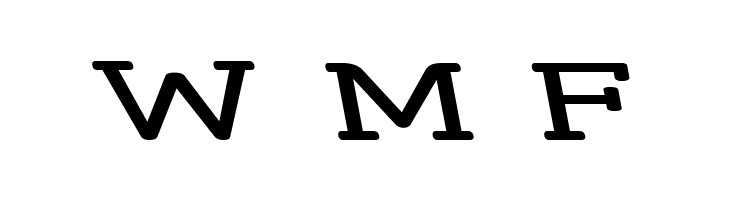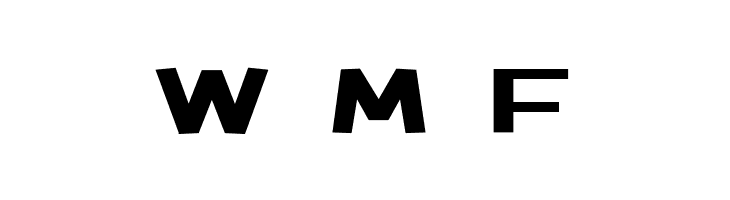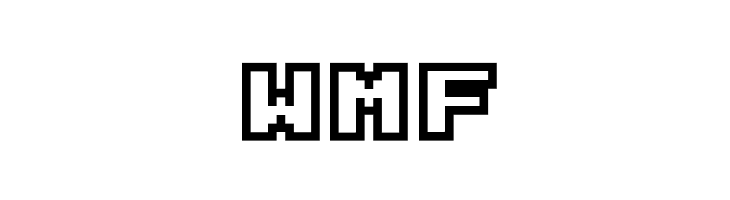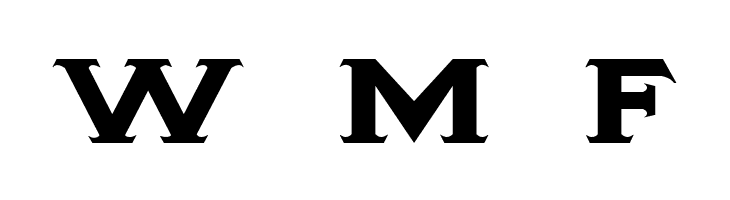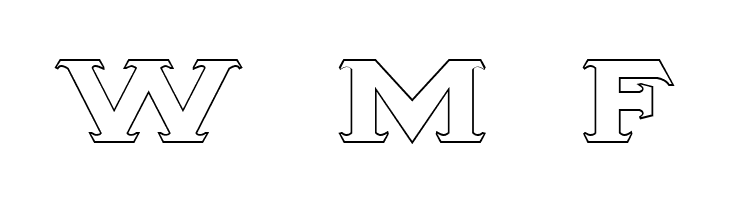
A bold, wide slab serif font with a modern yet classic appeal.
A bold, wide, and playful font with rounded forms and a modern style.
A jagged, decorative font with a spider web-like appearance, perfect for horror themes.
A modern, wide sans-serif font designed for high readability and clarity.
A bold, geometric font with wide, square-shaped characters and a modern aesthetic.
A futuristic font with a striped, geometric design ideal for tech and creative projects.
A textured, embroidery-inspired font with a bold, handcrafted look.
A bold, wide, and dynamic font with angular characters.
A bold, pixelated outline font with a retro video game style.
A bold, ultra-expanded serif font with wide letterforms and high contrast.
A bold, wide, and light serif font with a modern aesthetic.
A bold, wide, expanded font with extra black weight and high contrast.
Bold, italic, and expanded font with high contrast and dynamic style.
A bold, ultra-expanded italic font with a modern and dynamic style.
An ultra-expanded, light, and italicized font with a grand and dynamic style.
An ultra-expanded, light serif font with a modern and bold aesthetic.
A bold, wide, and expanded italic font with high contrast and strong visual impact.
A bold, ultra-expanded italic font with a powerful and dynamic presence.
Intricate vintage-style decorative dividers.
Ornamental divider and frame glyph set with decorative and geometric styles.
Ornamental divider glyphs with intricate, symmetrical designs.
A bold, wide sans-serif font with a modern, geometric design.
A bold, wide font with a modern, industrial feel, perfect for impactful headlines.
A wide, geometric font with uniform strokes and a modern, structured appearance.
A bold, heart-themed font perfect for romantic and playful designs.
A bold, wide serif font with dramatic, angular serifs and high contrast.